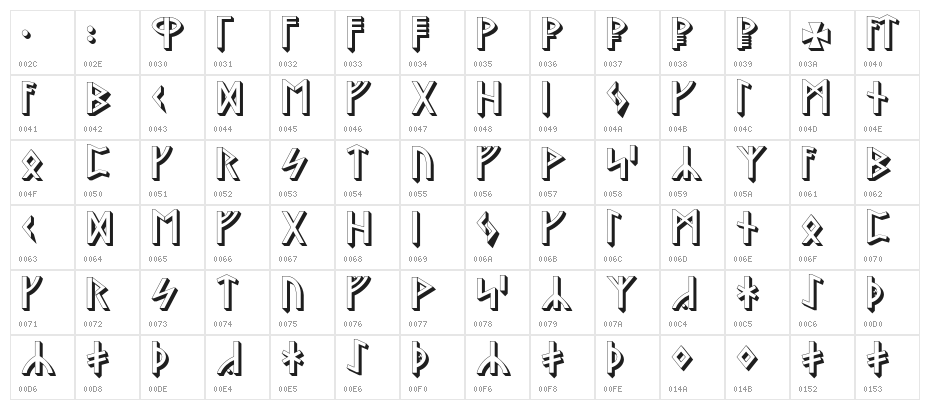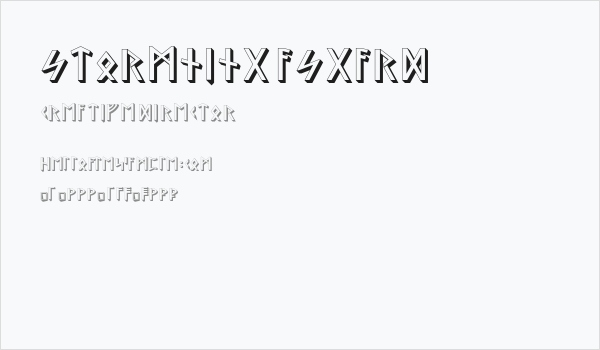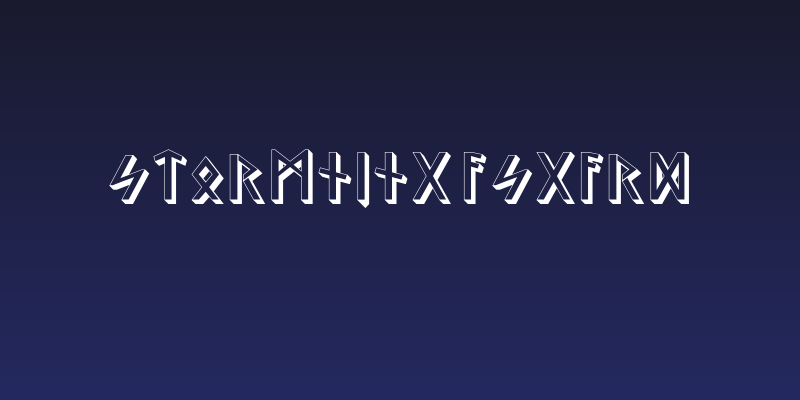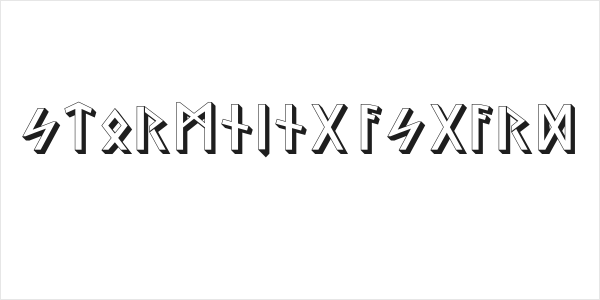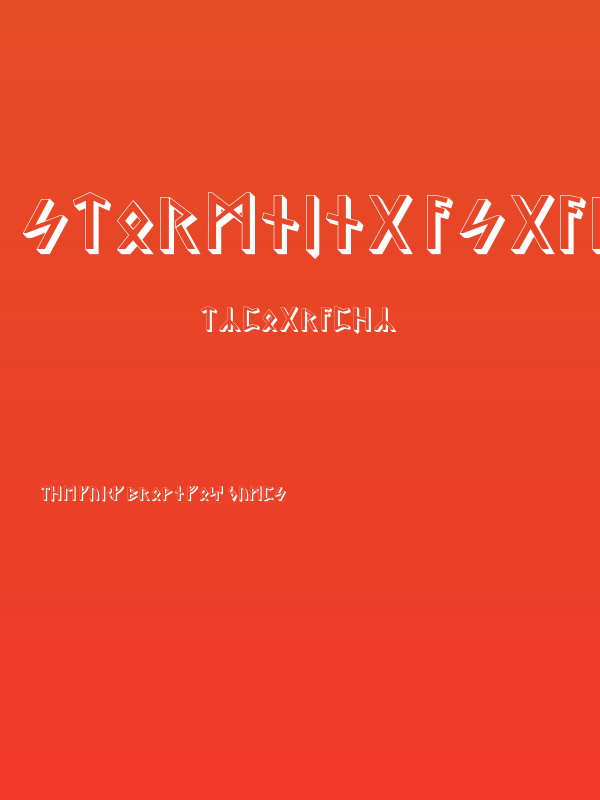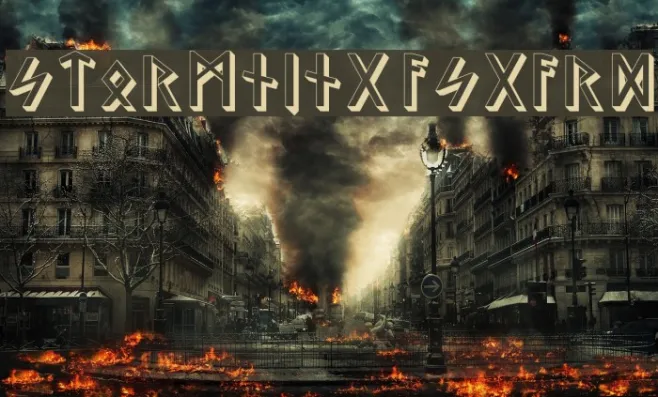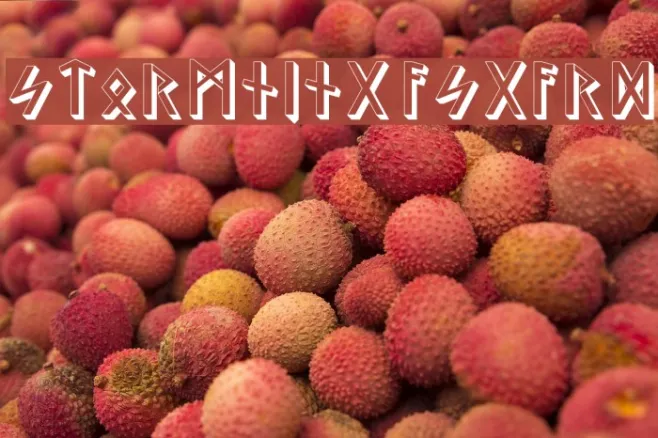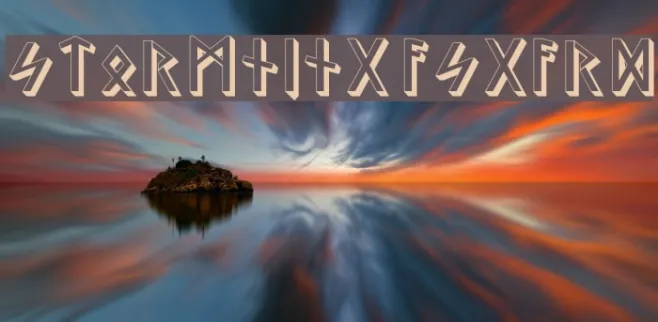
Stormning Asgard Font
Stormning Asgard Description
This font features a bold, angular design reminiscent of ancient runes or Norse-inspired typography. Each character is crafted with sharp edges and a three-dimensional effect, giving it a strong, impactful presence. The letters are uniformly styled with a consistent thickness, creating a cohesive look across the entire set. The font's geometric nature and shadowed effect add depth, making it ideal for designs that require a powerful and dramatic aesthetic. It is particularly suited for themes related to mythology, fantasy, or anything that demands a bold statement.
| Proposed Projects | Ideal for fantasy-themed posters, video game titles, book covers, and branding related to mythology or adventure. |